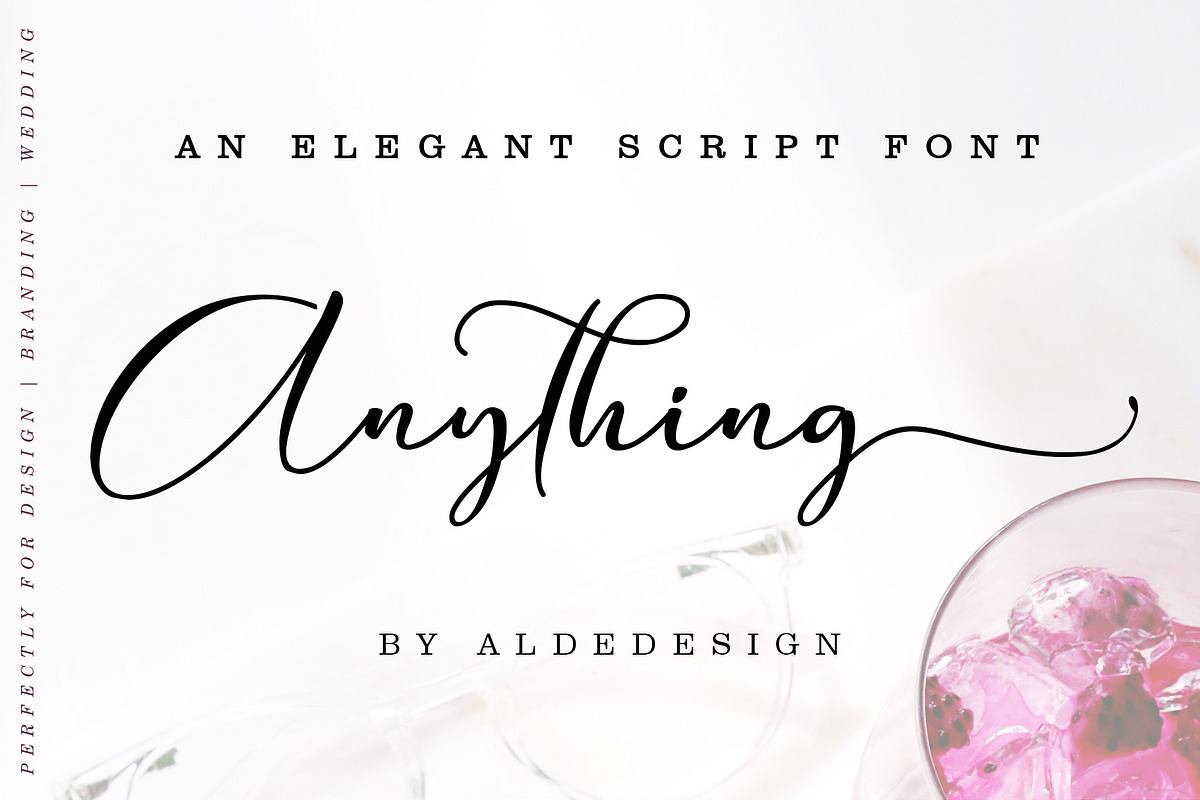
The Anything Script || 8 Fonts Free Download is a comprehensive collection of 8 elegant script fonts that offer a wide range of styles perfect for various creative projects. Ideal for logos, branding, invitations, greeting cards, social media graphics, and more, this font bundle gives you plenty of versatility to bring a personalized touch to your designs. Please note, for commercial use, a license must be purchased. You can download it for free for testing purposes.
This bundle includes a diverse selection of script fonts, from flowing cursive styles to bold, modern handwritten designs, ensuring that you have the right fit for any creative project. Whether you're designing for weddings, branding, or social media promotions, the Anything Script collection will add a stylish and artistic touch to your work.